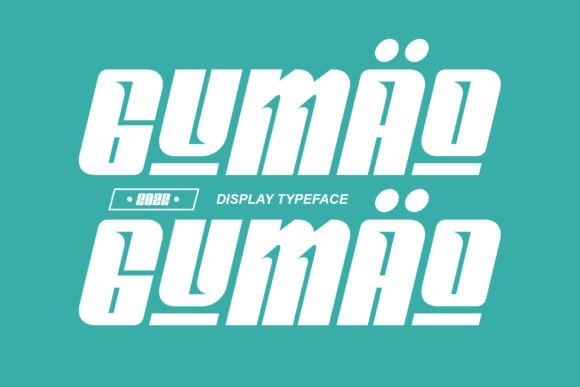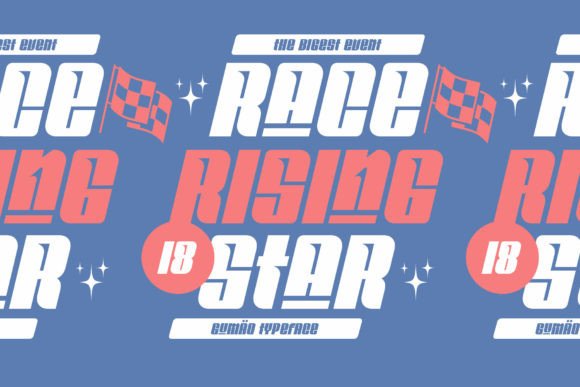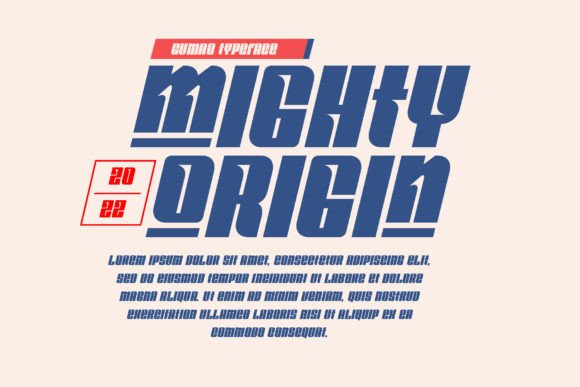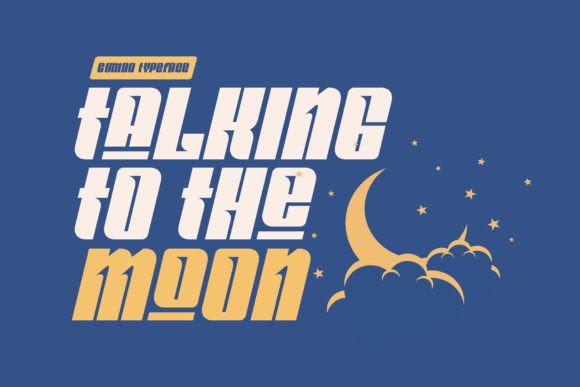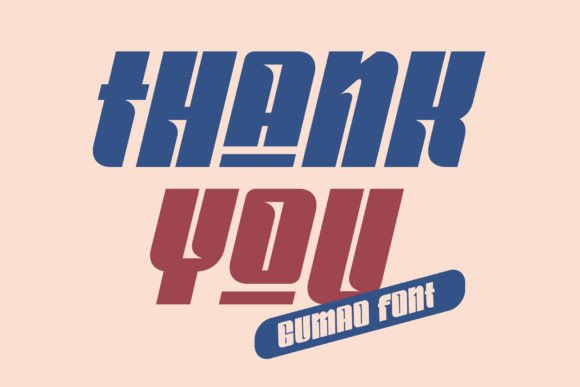
The Birth of a New Creative Companion: Gumao Font
Have you ever sat in front of your computer, staring at a blank canvas, waiting for the perfect font to bring your design to life? We’ve all been there. As creatives, we know how crucial the right typography can be to convey our message and evoke the desired emotions. That’s why we’re thrilled to introduce our newest product, the Gumao Font, designed to be your go-to companion for all your creative endeavors.
With Gumao Font, you can unleash your creativity across various projects, from branding and procreate to crafts for decor, invitations, and more. This versatile font boasts all caps glyphs, numbers, basic punctuation, and multilingual support, making it an invaluable asset for designers seeking to elevate their designs and connect with diverse audiences.
Gumao Font Key Features
- Font Family: Gumao is a sans-serif font family designed for digital use.
- Character Set: Gumao Font supports a wide range of languages, including Latin, Cyrillic, and Greek alphabets.
- Font Size: Gumao Font is available in 5 font weights: Thin, Light, Regular, Medium, and Bold, ranging from 8 to 72 points.
- Resolution: Gumao Font is designed for high-resolution displays and is optimized for use at 96-300 dpi.
- Unique Characteristics: Gumao Font features a unique geometric design with clean lines and a modern aesthetic, making it suitable for digital interfaces and user-friendly designs.
Gumao Font Review
As a designer, I had the opportunity to work with the Gumao Font, and I must say it’s an interesting choice. Here’s my honest review.
- Unique Character**: Gumao Font has a distinct character that can add a touch of personality to your designs. Its quirky feel can be perfect for projects that need a bit of whimsy.
- High Legibility**: Despite its unconventional design, Gumao Font is surprisingly legible, making it suitable for body text and other areas where readability is crucial.
- Fun for Creative Projects**: Gumao Font is a great choice for creative projects, such as children’s books, games, or even advertisements that need a playful tone.
- Limited Use Cases**: Gumao Font’s unique design might not be suitable for formal or professional projects, where a more traditional font is often preferred.
- Not Ideal for Large Text**: Due to its playful nature, Gumao Font might not be the best choice for large text or headlines, as it can become overwhelming.
Gumao Font is a fun and quirky choice for designers looking to add some personality to their projects. While it has its limitations, it’s a great option for creative projects where a playful tone is desired. However, it’s essential to consider the project’s requirements and audience before choosing this font.
Gumao Font Practical Application Guide
To use the Gumao font in PowerPoint or Word, select the text you want to edit and click on the ‘Home’ tab. In the font group, select the Gumao font from the font dropdown list. You can adjust the font size, color, and style to suit your presentation or document needs. Gumao is great for creating modern and professional-looking text.
The Gumao font is ideal for creating bold and modern headings, titles, and text in various design applications. It’s particularly effective for:
- Creating eye-catching titles and headings
- Designing modern and professional-looking text
- Adding a bold and modern touch to your designs
Tips for Getting the Most Out of Gumao
To get the most out of the Gumao font, try the following:
- Use it for bold and modern headings
- Experiment with different font sizes and styles
- Pair it with other modern fonts for a unique look
Alternatives to Gumao Font
Montserrat is a modern sans-serif font designed for digital use. It is ideal for use in headlines, titles, and body text where a clean and minimalist aesthetic is desired. Montserrat is similar to Gumao Font in its clean and modern look, but it has a more geometric feel and a wider range of weights and styles available.
Inter is a highly legible sans-serif font designed for use in digital interfaces. It is well-suited for use in body text, captions, and other text elements where readability is a top priority. Inter is similar to Gumao Font in its clean and modern look, but it has a more neutral feel and a wider range of weights and styles available.